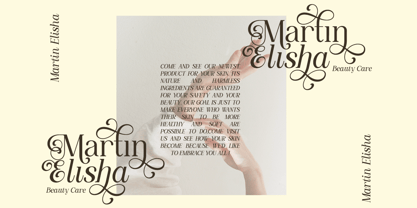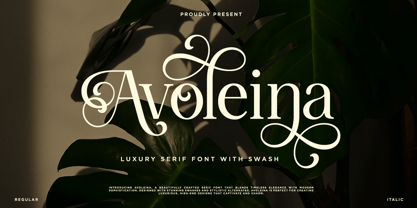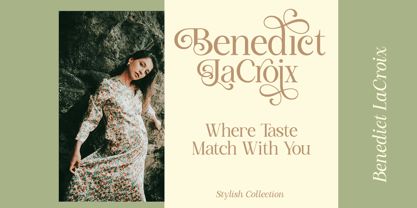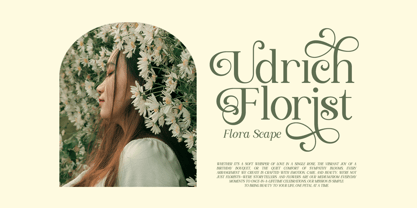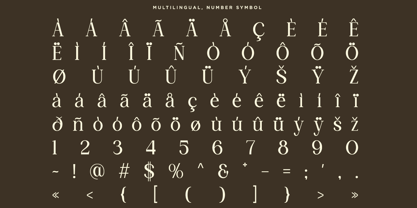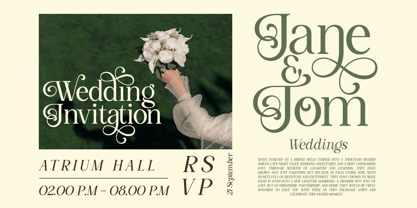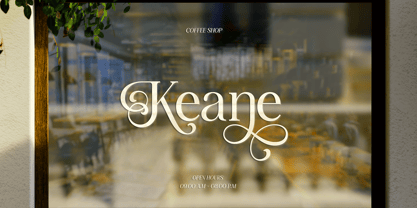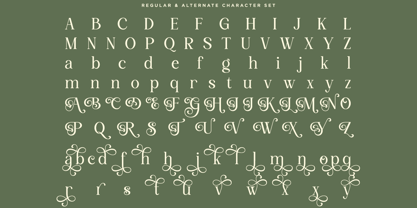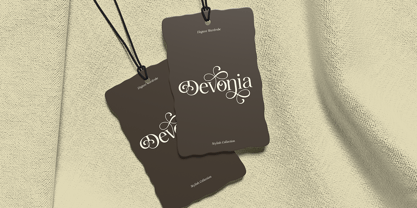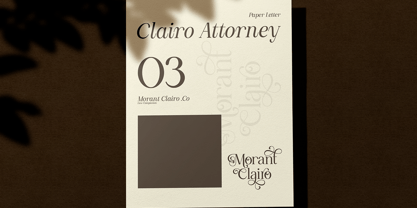
RK Avoleina
by RagamKata
The RK Avoleina Font Family was designed by Yogiswhara Dio Prakoso Riadi and published by RagamKata. RK Avoleina contains 2 styles and family package options. More about this family
Introducing Avoleina, a stunning luxury serif typeface crafted with exquisite elegance and timeless sophistication. Designed for those who crave high-end aesthetics, Avoleina combines classic serif structure with beautifully detailed swashes and flourishes that make every word a piece of art. Perfect for Branding, Logo, Headline, Tagline, Editorial, Packaging, Social Media. Whats Included : - Avoleina Regular - Avoleina Italic - Alternates & Swashes for stylistic - Uppercase & Lowercase Letters - Numbers & Punctuation - Multilingual Support Thank you for Visit us, Have a nice Day !
Designers: Yogiswhara Dio Prakoso Riadi
Foundry: RagamKata